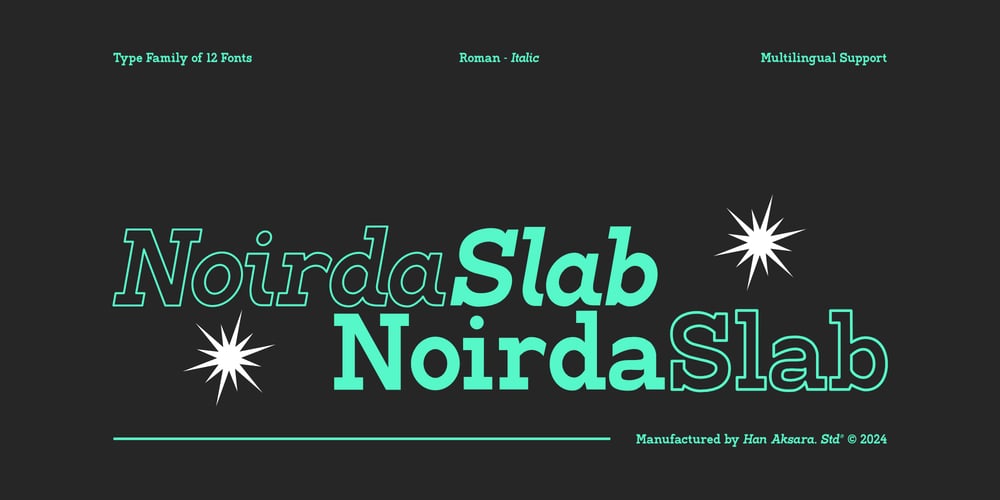
HA Noirda Slab Font Family was designed by Darul Qutni and published by Hanaksara Studio. HA Noirda Slab contains 12 styles and family package options. Introducing a Bold Classic with a Modern TwistElevate your design projects with a slab serif font that embodies boldness, masculinity, and a timeless sense of classic style. This font stands out with its robust, authoritative forms and distinctive serif strokes, creating a powerful visual impact while embracing a modern flair. Its traditional slab serif roots are infused with a contemporary edge, making it a versatile choice for both vintage-inspired and modern design contexts.With 6 dynamic weights—ranging from Light to Extra Bold—each accompanied by an italic style, this font offers a broad spectrum of options to suit any design need. Whether you’re crafting eye-catching posters, memorable logos, engaging editorial layouts, or even intricate body text, this typeface ensures a strong, assertive presence that commands attention.The font’s design emphasizes high readability, ensuring clarity even at smaller sizes, which is crucial for maintaining impact in various applications. Although it currently lacks OpenType features, future updates will introduce enhanced customization options, providing even greater flexibility for your creative projects.Furthermore, this font supports 65 languages, including Afrikaans, French, Spanish, and Swedish, making it a global solution for diverse linguistic needs. Its adaptability across languages ensures that your designs can reach a wider audience while maintaining a consistent and powerful visual identity.In summary, this typeface combines classic slab serif elegance with modern boldness, offering a versatile and impactful solution for all your design needs.